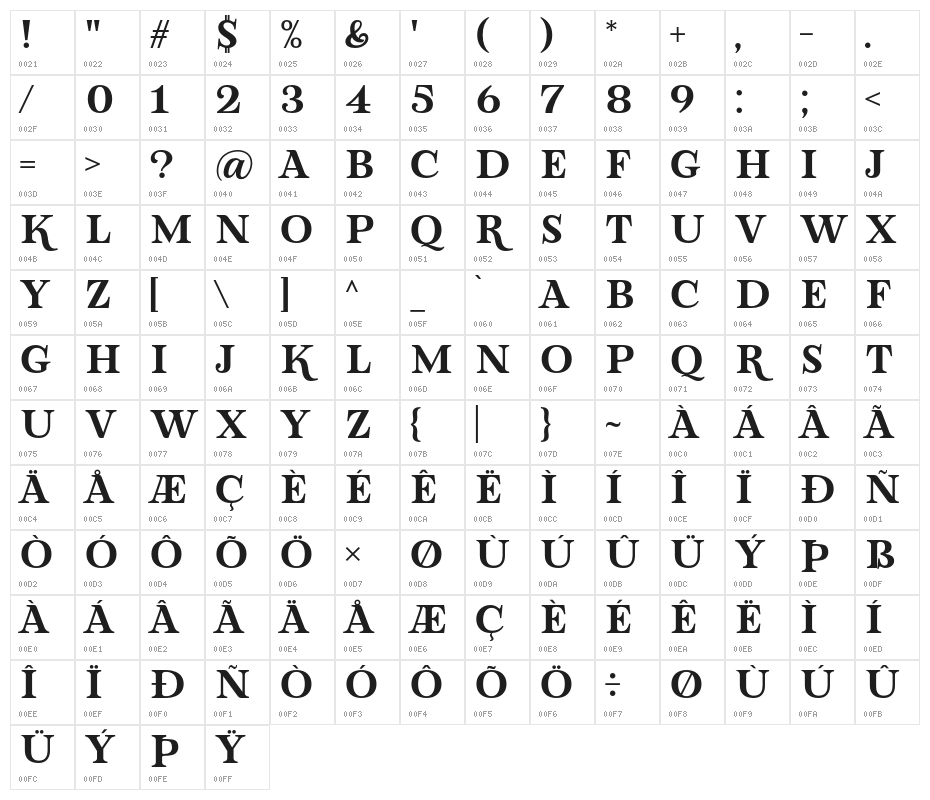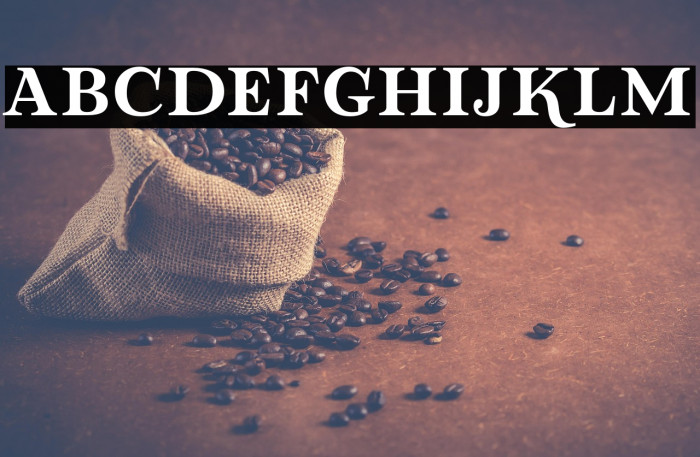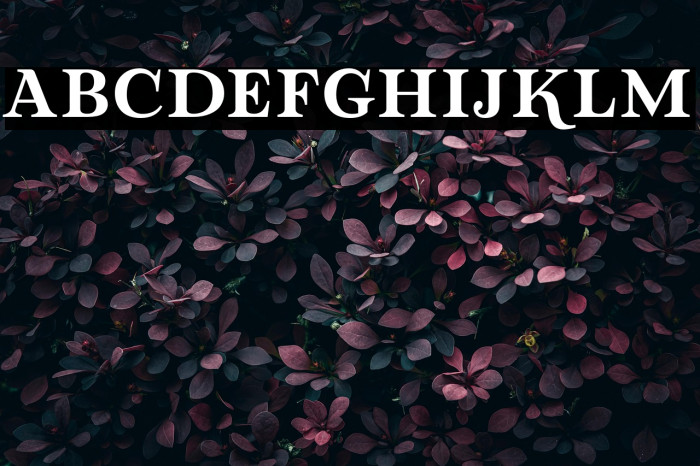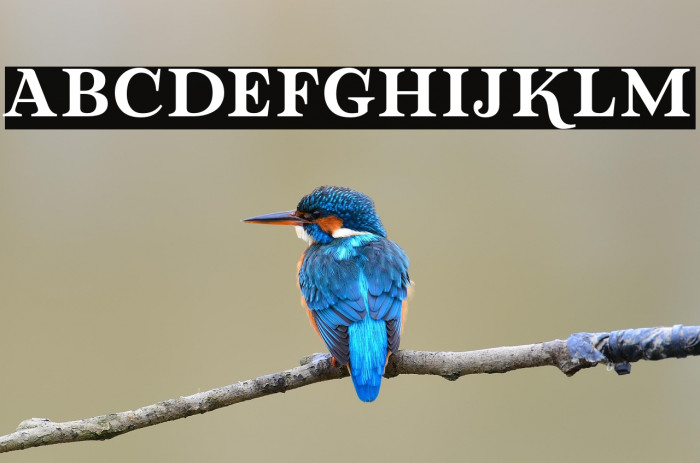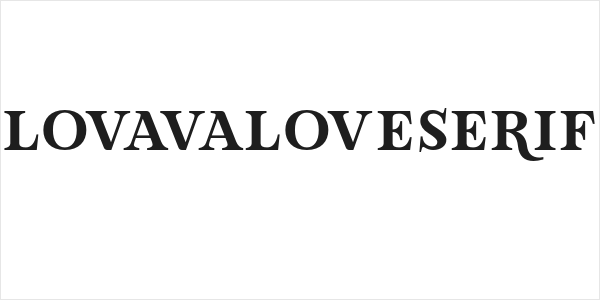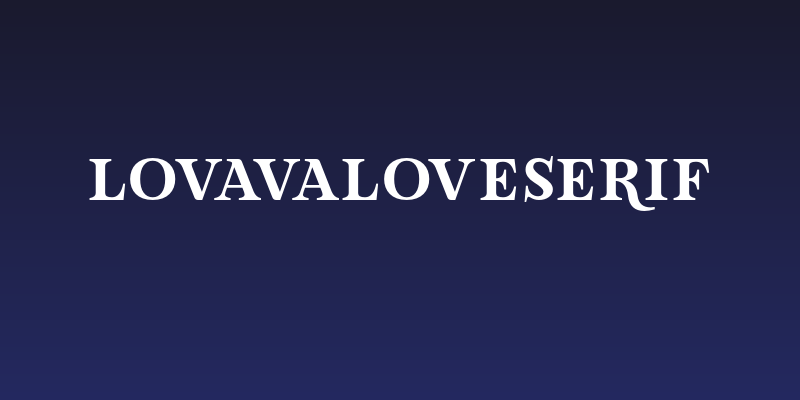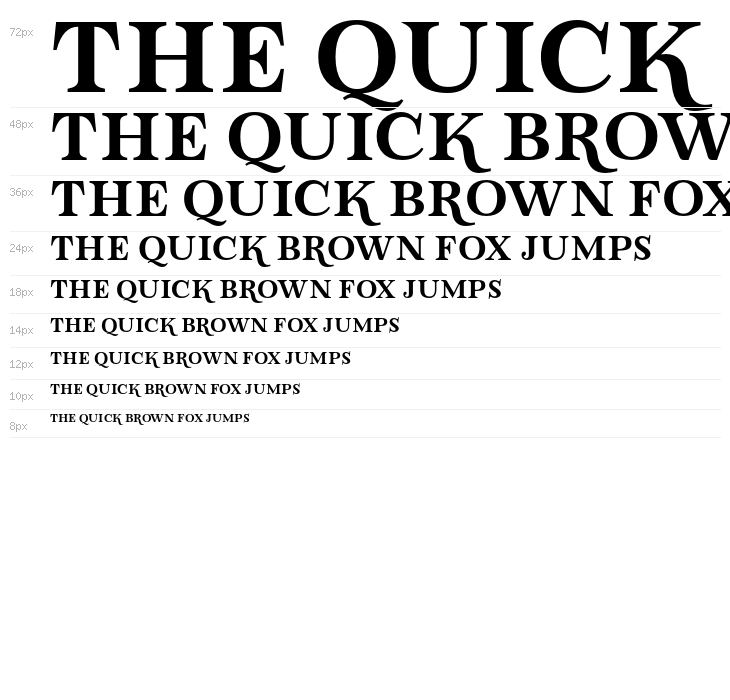
LovaValoveSerif Font
LovaValoveSerif Description
This serif typeface exudes a classic elegance with its bold and pronounced strokes. The uppercase letters feature distinct serifs that add a touch of sophistication, while the lowercase letters maintain a consistent style that complements the overall design. The numerals are robust and clear, ensuring readability. Special characters are crafted with attention to detail, enhancing the font's versatility. The font's structure is well-balanced, making it suitable for a variety of applications where a traditional yet impactful appearance is desired.
| Use Case | Headlines, Logos, Editorial design |
| Proposed Projects | Ideal for book covers, formal invitations, branding materials, and editorial design. |